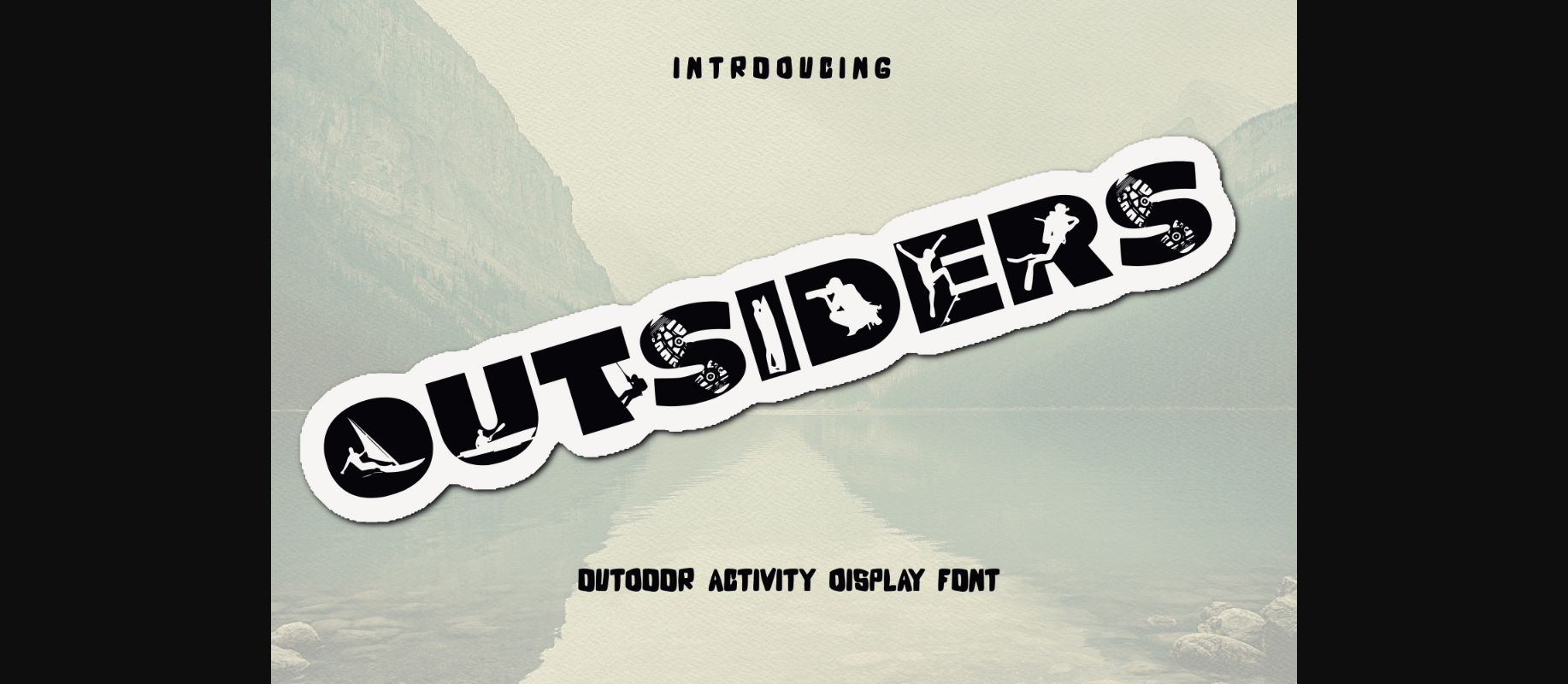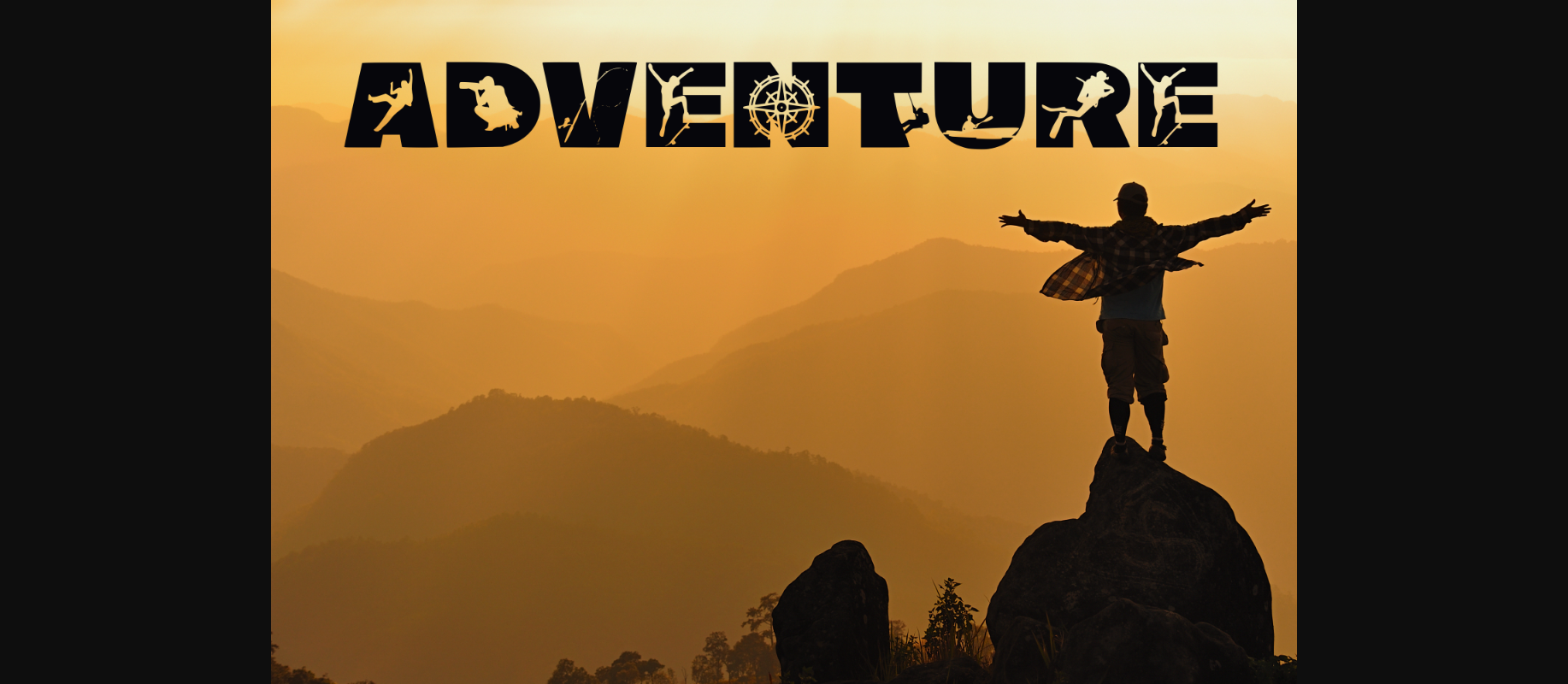
About Outsiders Font
Outsiders is an outdoor adventure decorative font perfect for sticker design, t-shirt design, wall art, and a lot more. Add it to any of your creative projects, and it will make your work look outstanding!